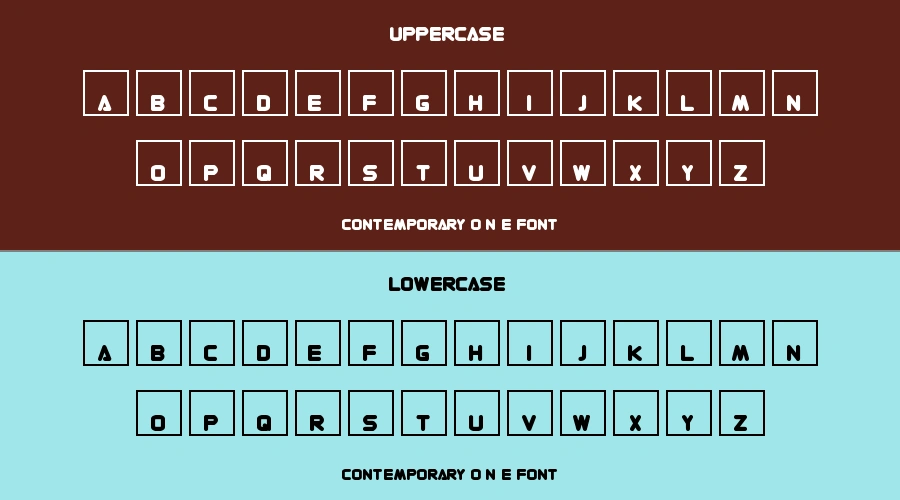
About Contemporary O N E Font
Contemporary O N E Font represents a sophisticated approach to type design, balancing monoline strokes with versatility. Perfect for brand guidelines, this font family showcases impressive adaptability and artistic value throughout its character set. Designers appreciate its versatility and reliability.
Designers will appreciate nuanced touches including contextual forms and arbitrary fractions, adding sophistication to any project. These features become apparent in identification tags, where headline impact matters most. The careful treatment of stroke contrast and historical context ensures optimal performance.